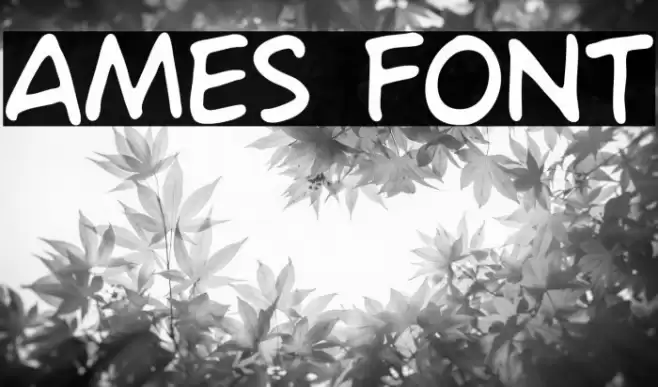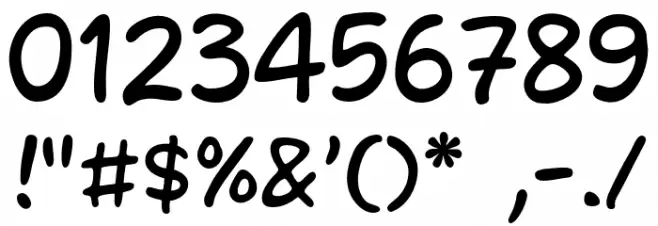
Ames Font
Ames Description
This font features a playful, handwritten style with rounded edges and a casual appearance. The letters are bold and slightly irregular, giving a friendly and approachable feel. The uppercase and lowercase characters maintain a consistent style, with smooth curves and a slight tilt, enhancing the informal look. Numbers and special characters are designed to match the overall aesthetic, ensuring uniformity across all glyphs. The font's legibility is high, making it suitable for various applications where a relaxed and informal tone is desired.
A playful, handwritten font with rounded edges and a casual style from Comic fonts.
- Proposed Projects: Ideal for children's books, greeting cards, informal branding, and playful posters.
- Overall Style: Casual, Playful
- Use Case: Headlines, Informal text, Branding